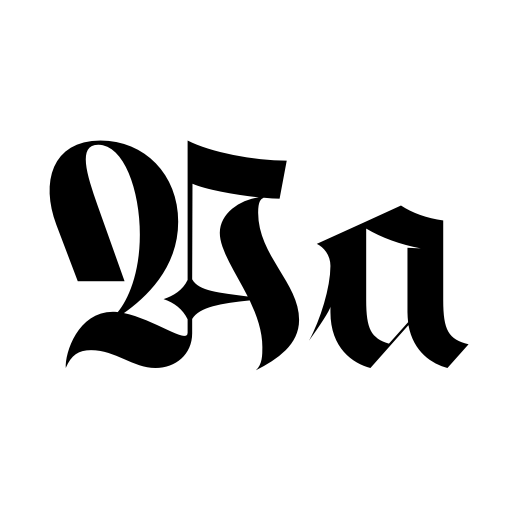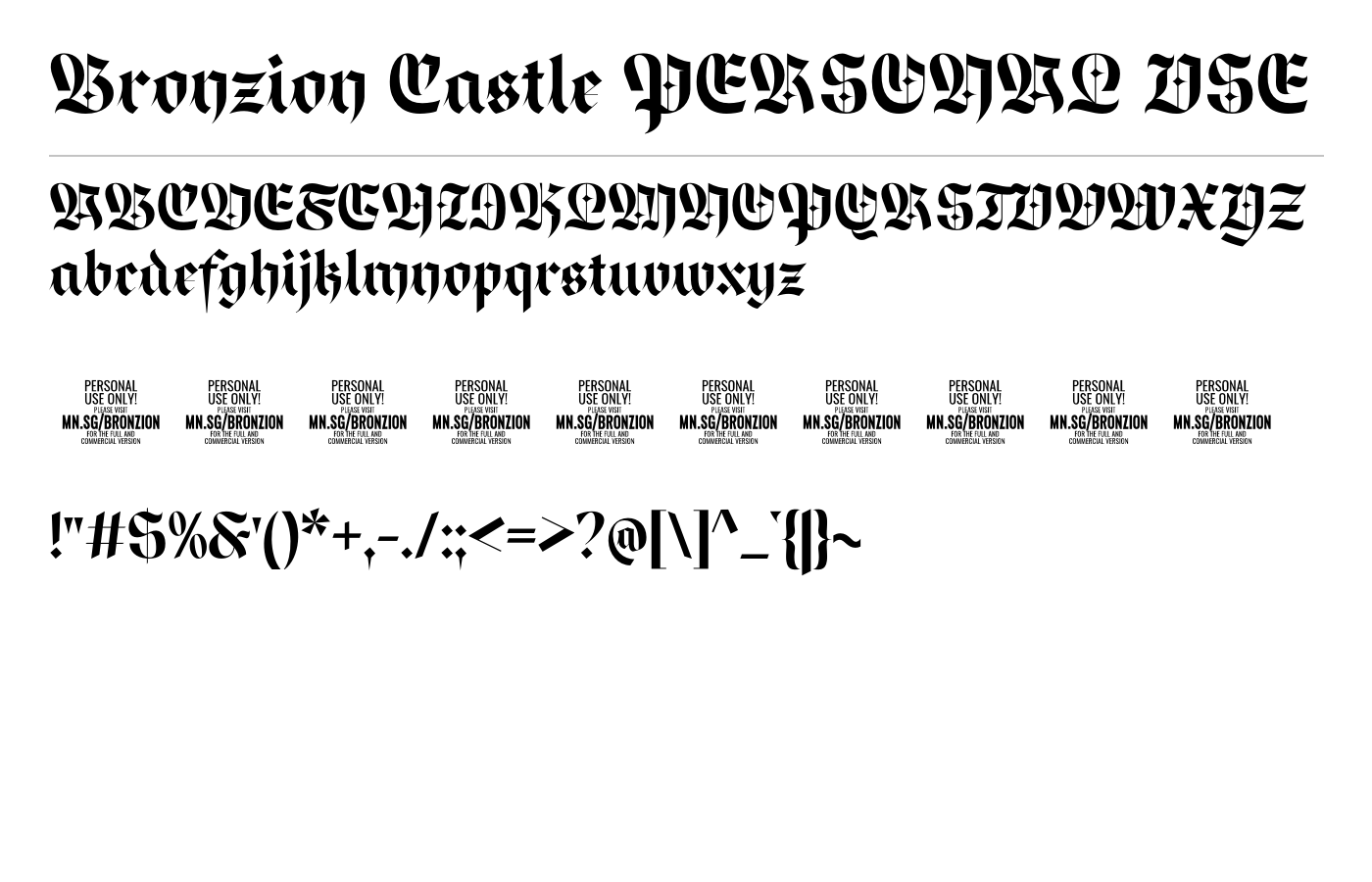
Bronzion Castle is a bold blackletter serif font with a strong medieval character, featuring sharp, angular strokes and high contrast between thick and thin lines. Its elaborate letterforms and decorative elements bring a historic, gothic feel, making it ideal for vintage branding, posters, or designs seeking a dramatic, old-world charm. This font works best in headlines or logos where its intricate style can stand out and create a memorable visual impact.
Bronzion Castle PERSONAL USE Font
About Bronzion Castle PERSONAL USE Font